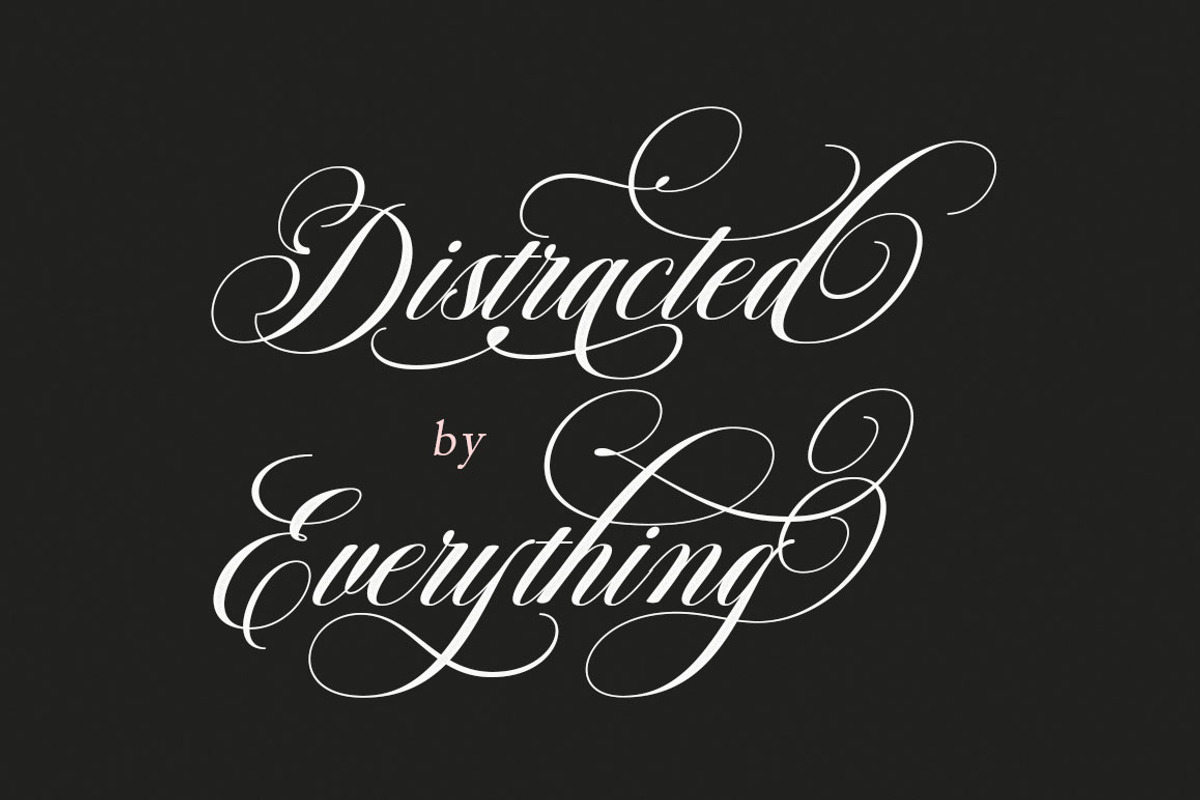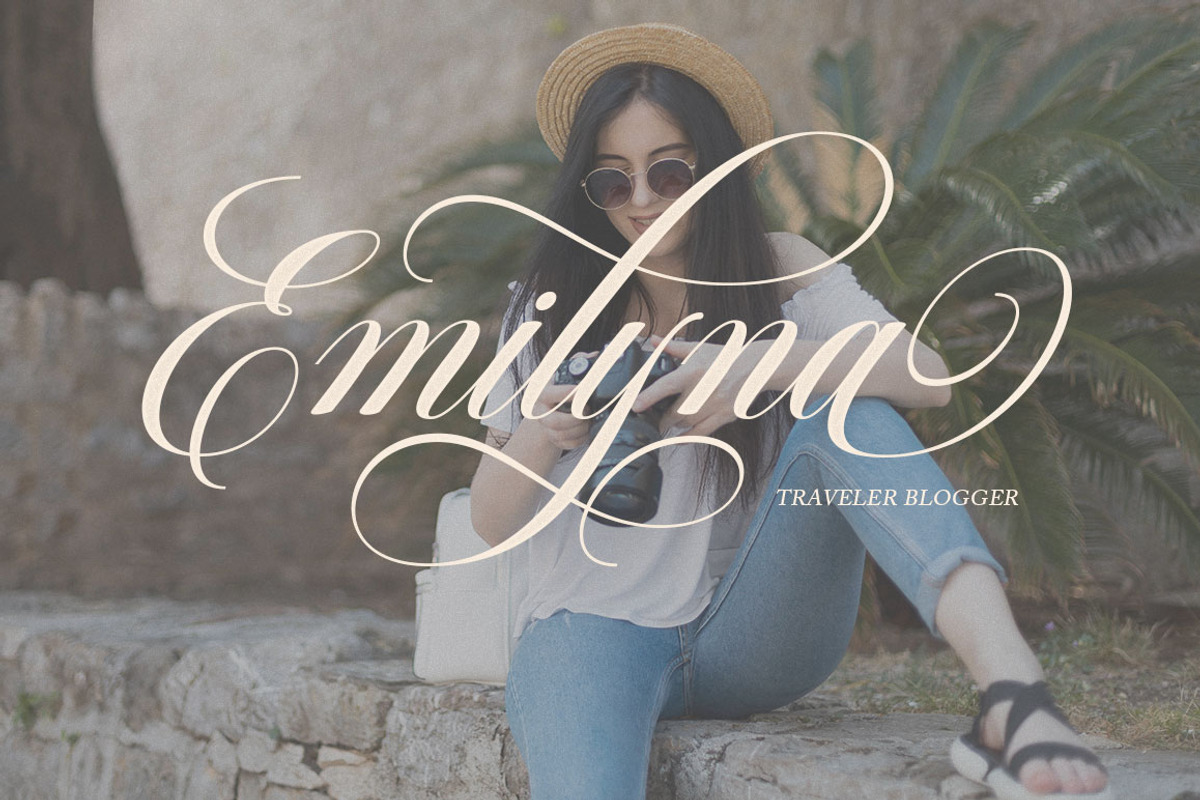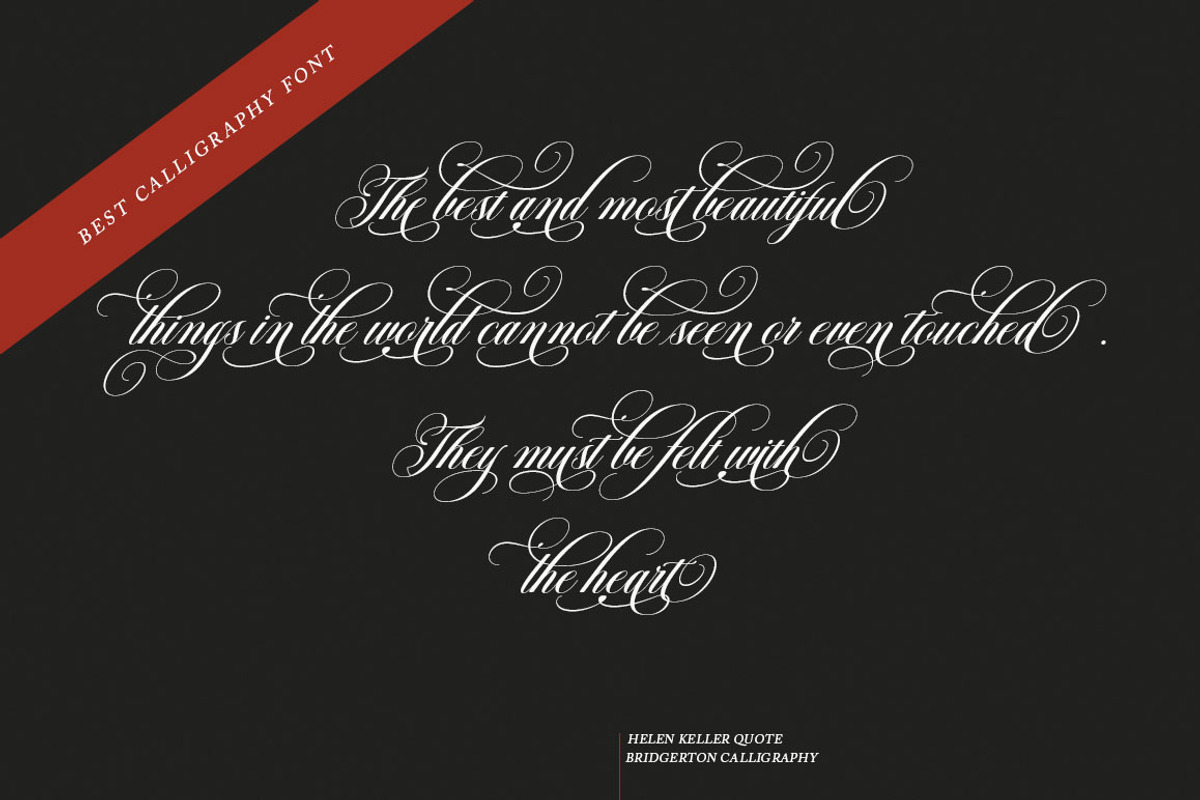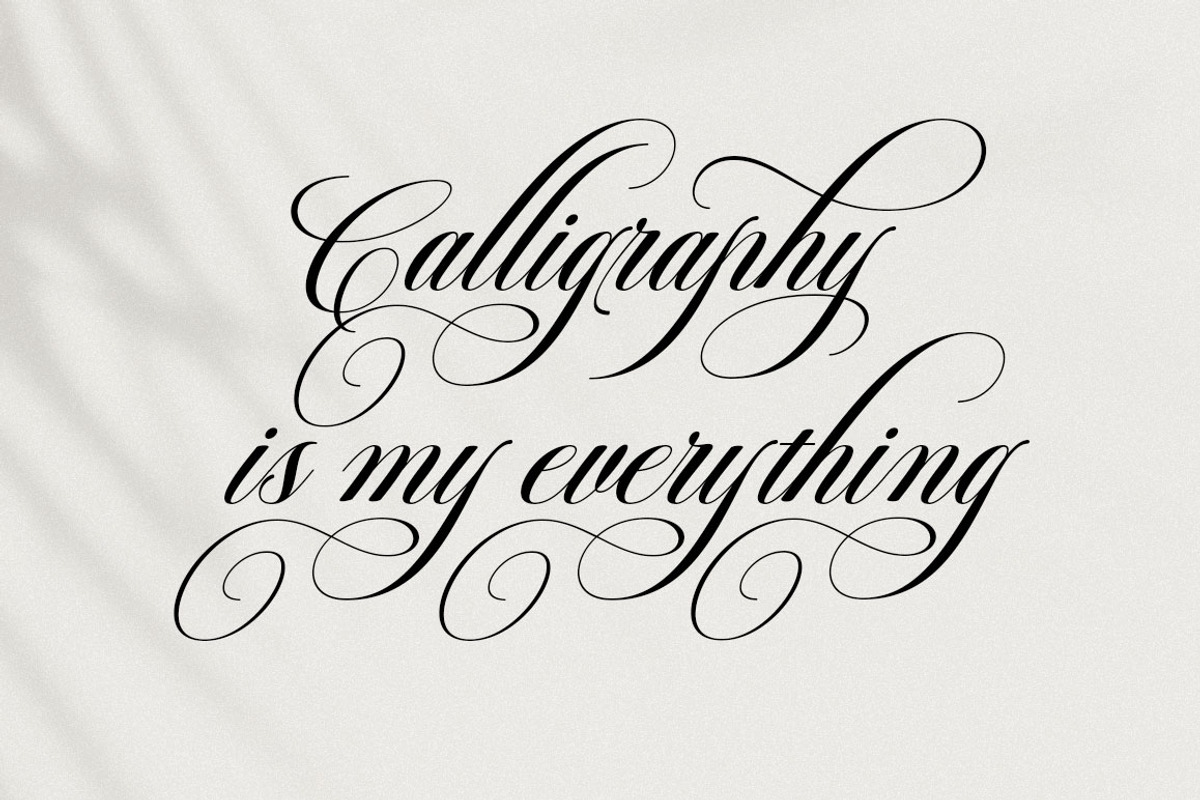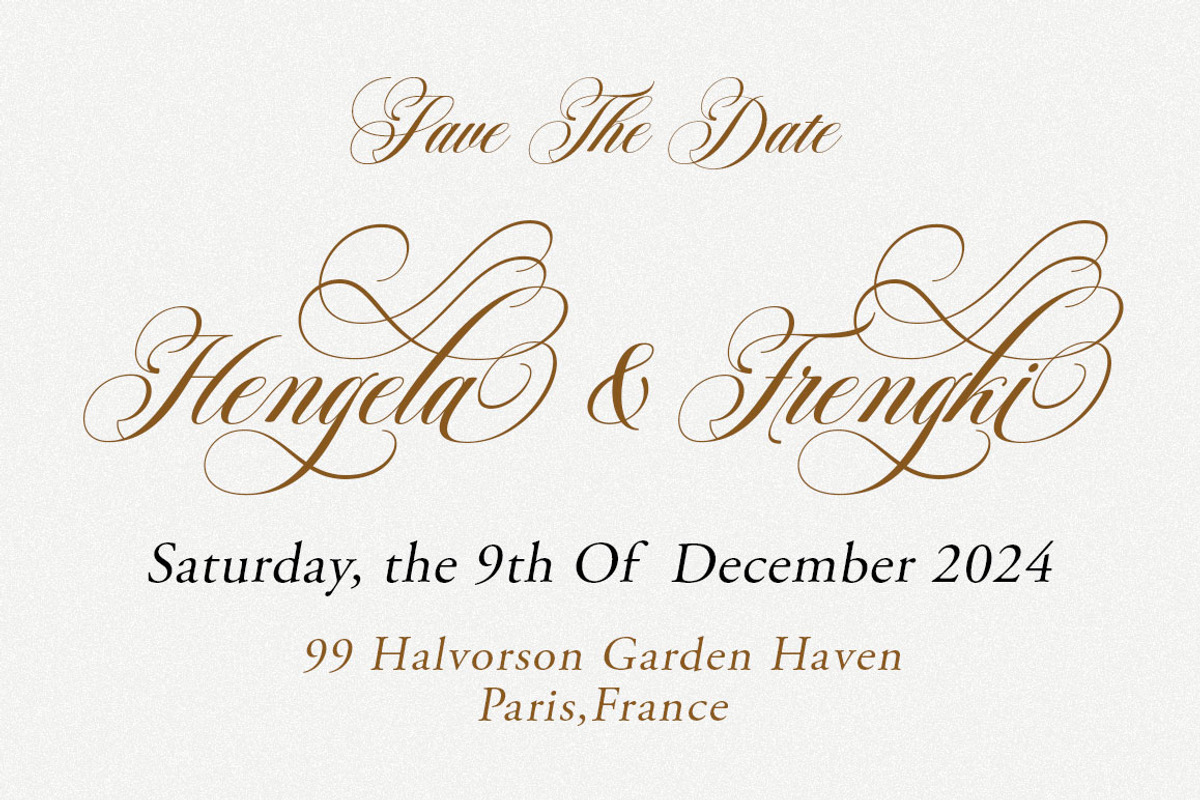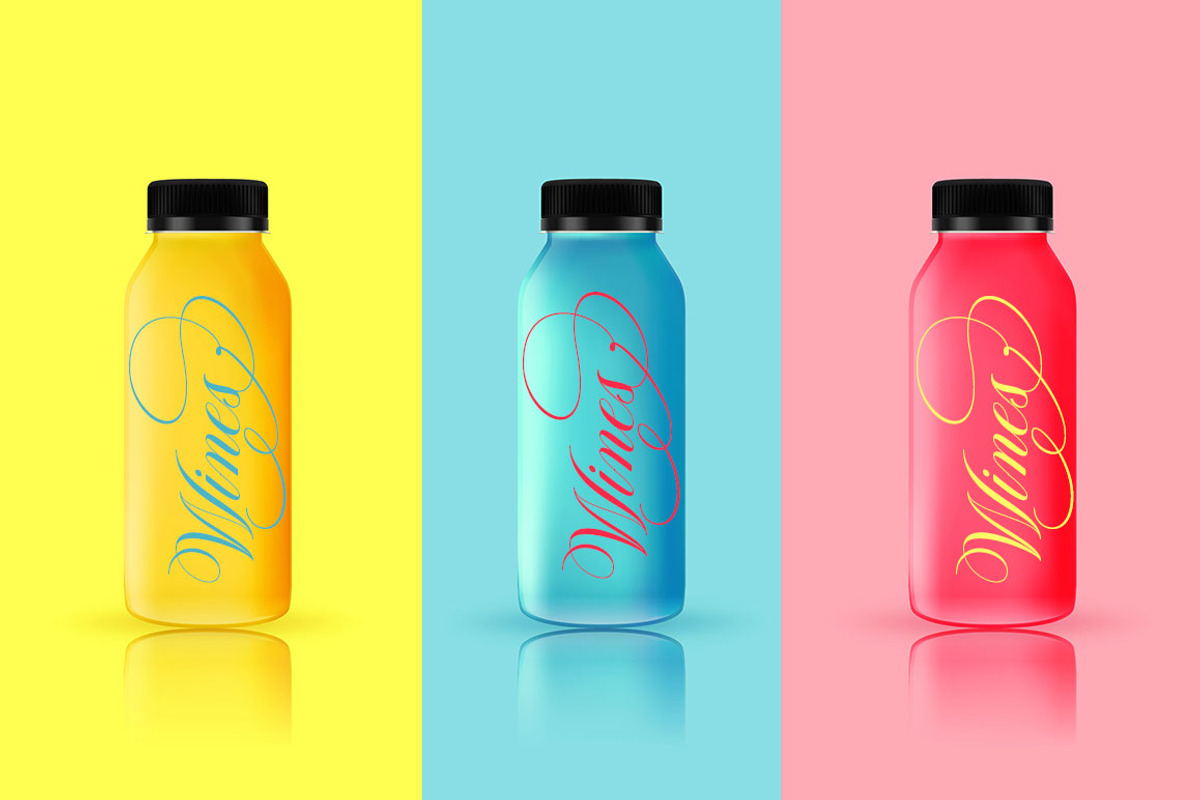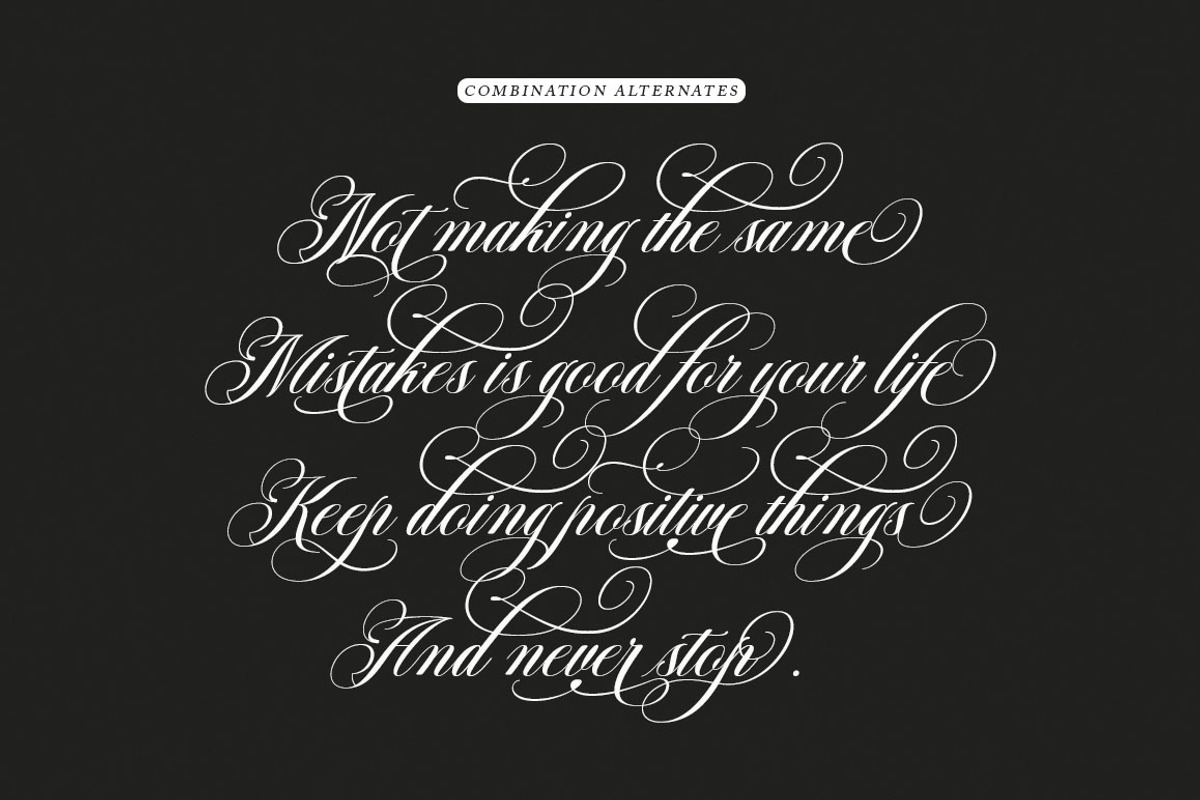
Bridgerton Script
Bridgerton Script is a calligraphy font that comes with exquisite changing characters, a kind of classic decorative copper script with a modern touch, designed with high details to bring out the elegance of the style. Bridgerton Script Font is attractive because the typeface is smooth, clean, feminine, sensual, glamorous, simple and very easy to read, because of the many luxurious letter connections. I also offer a number of viable style alternatives for many letters. The classic style is very suitable to be applied in various formal forms such as invitations, labels, restaurant menus, logos, fashion, make up, stationery, novels, magazines, books, greeting/wedding cards, packaging, labels or all kinds of advertising purposes. .